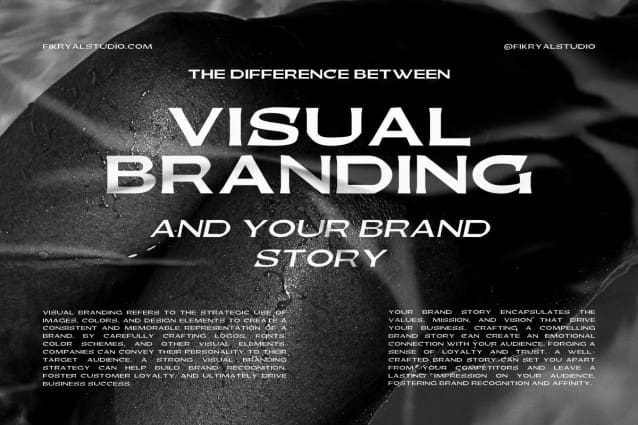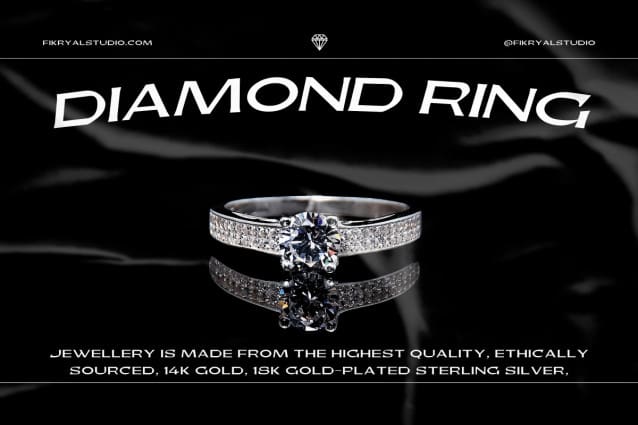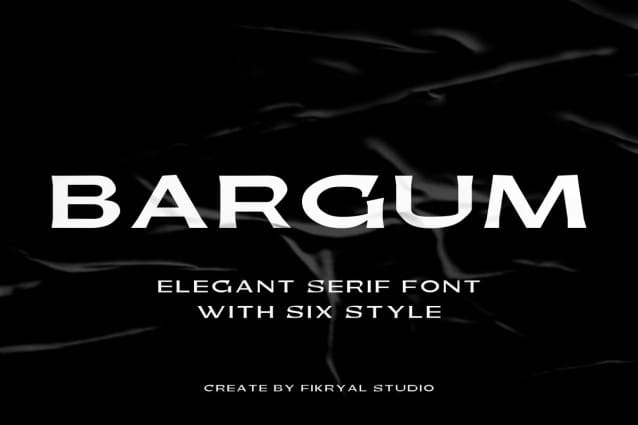
Bargum Font Family
Bargum Font Family is an elegant display serif font family designed to bring timeless sophistication to your creative projects. Featuring six styles—Light, Light Italic, Regular, Italic, Bold, and Bold Italic—this font family is ideal for projects that demand a refined and professional touch.
With its stylish serif details and classic proportions, Bargum Font is perfect for branding, editorial layouts, wedding invitations, and luxury designs. Whether you’re crafting print materials, creating digital experiences, or designing for fashion and lifestyle brands, Bargum offers the versatility and elegance to make your projects stand out.